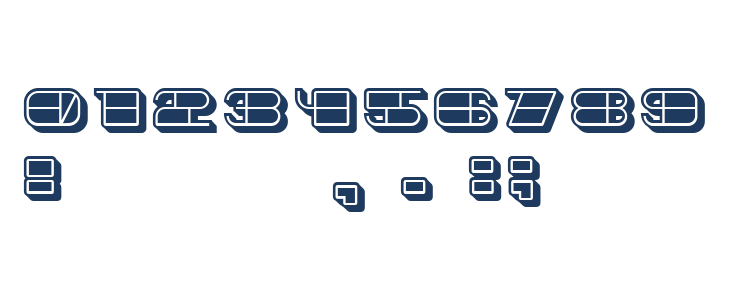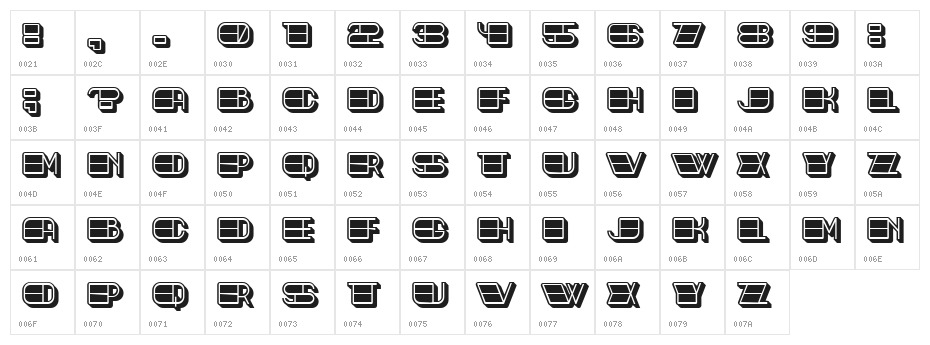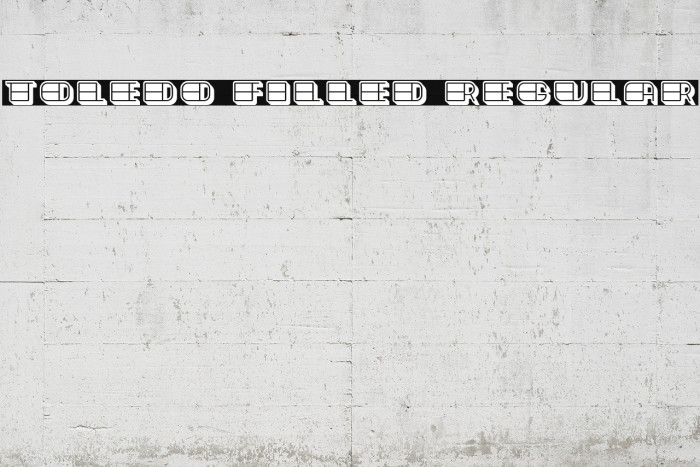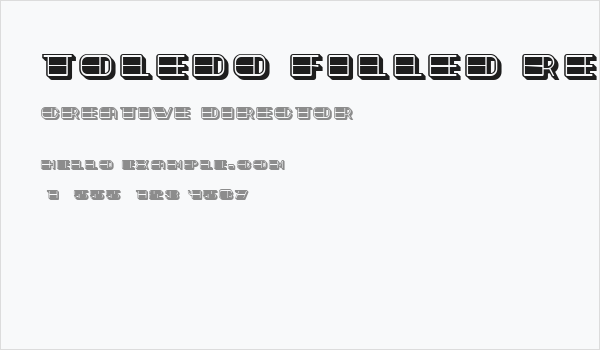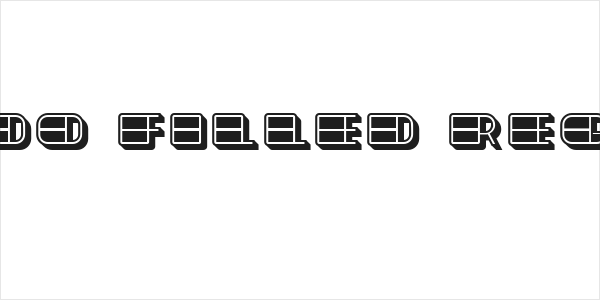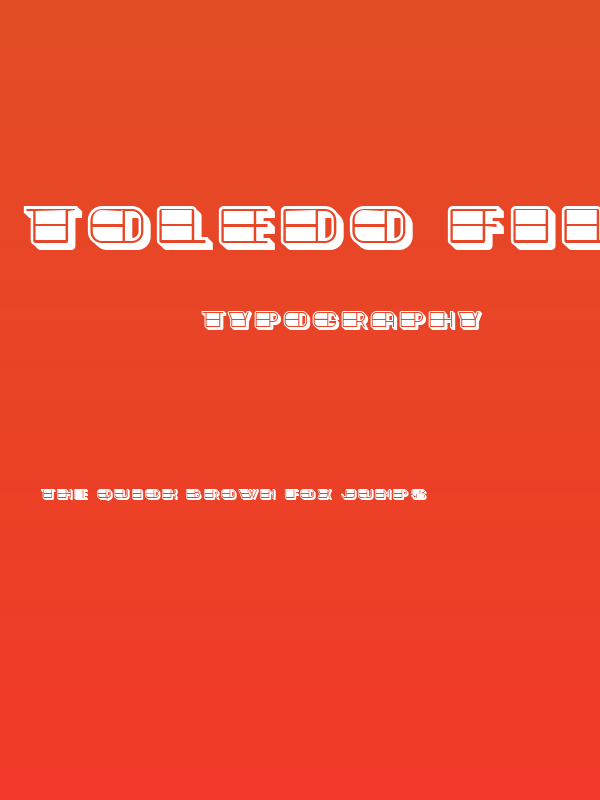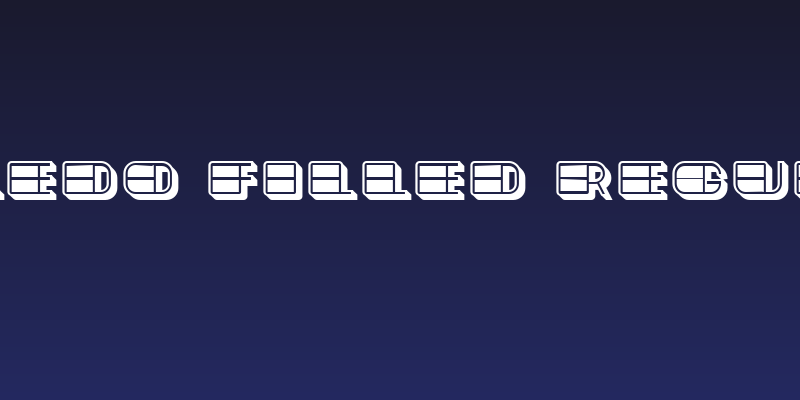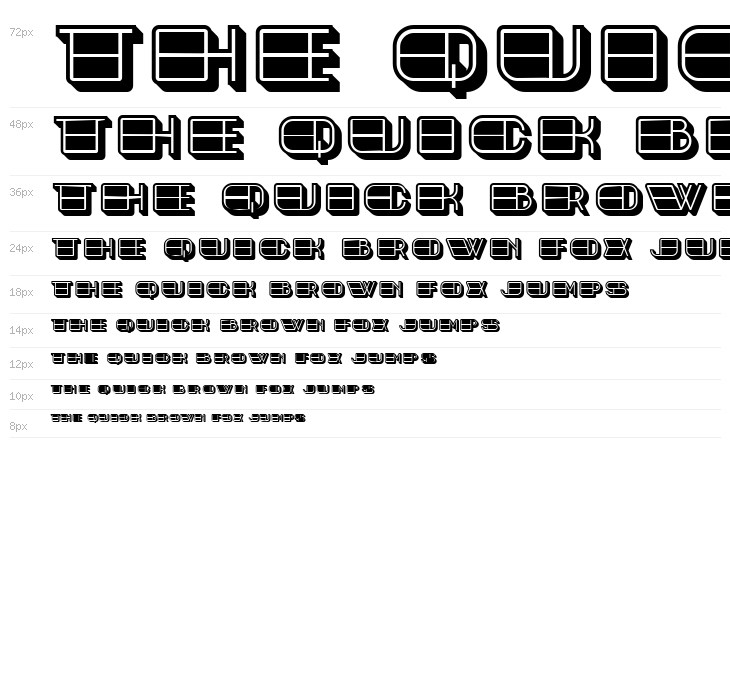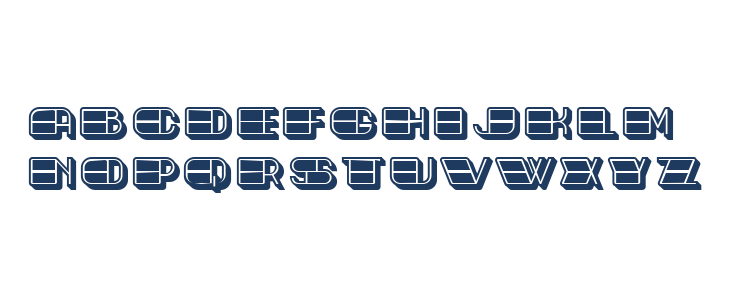
Toledo Filled Regular Font
Toledo Filled Regular Description
This font features a bold, geometric design with a filled interior and a distinct outline, creating a striking visual effect. The characters are constructed with a modern, block-like appearance, emphasizing strong horizontal and vertical lines. Each letter and number is enclosed within a thick border, enhancing its presence and readability. The font's style is reminiscent of digital or technological themes, making it suitable for contemporary designs. The special characters maintain the same bold and structured aesthetic, ensuring consistency across all elements.